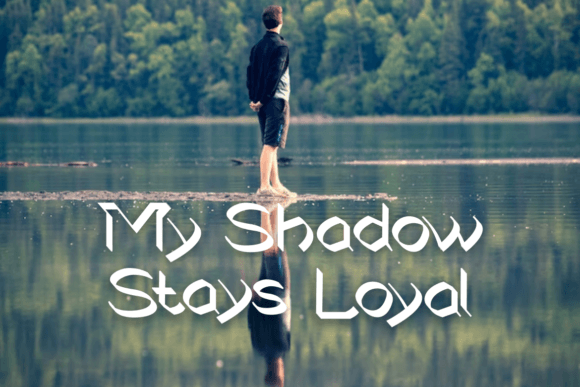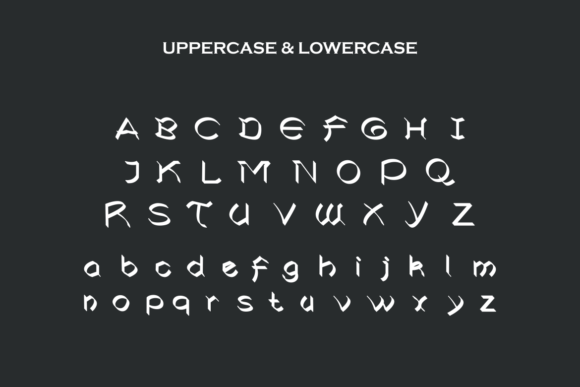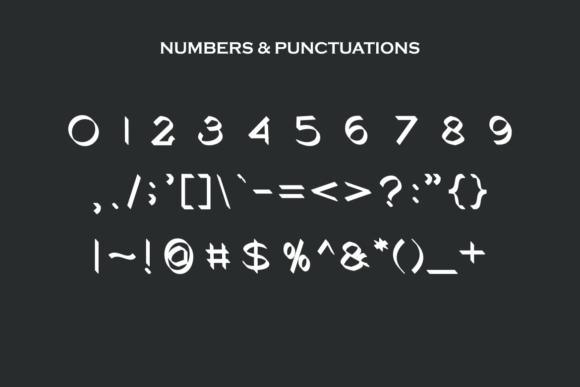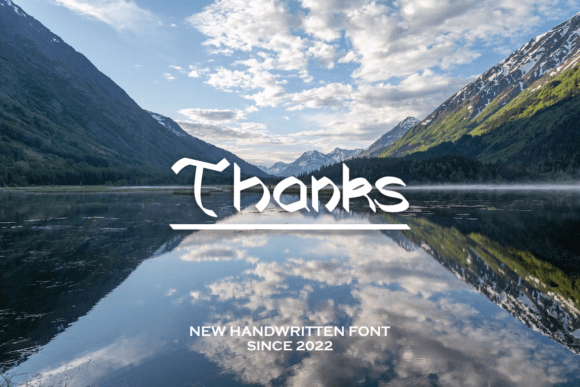
Introduction to Greetmirror Font
Greetmirror is a fun and unique handwritten font.
This font is neatly crafted and highly detailed Whatever the topic, this font will be a wonderful asset to your font library, as it has the potential to enhance any creation.
Key Features of Greetmirror Font
Why Choose Greetmirror Font?
Greetmirror Font offers exceptional quality and versatility, making it a valuable addition to your design toolkit. Whether you’re creating for personal projects or commercial use, Greetmirror Font delivers professional results.